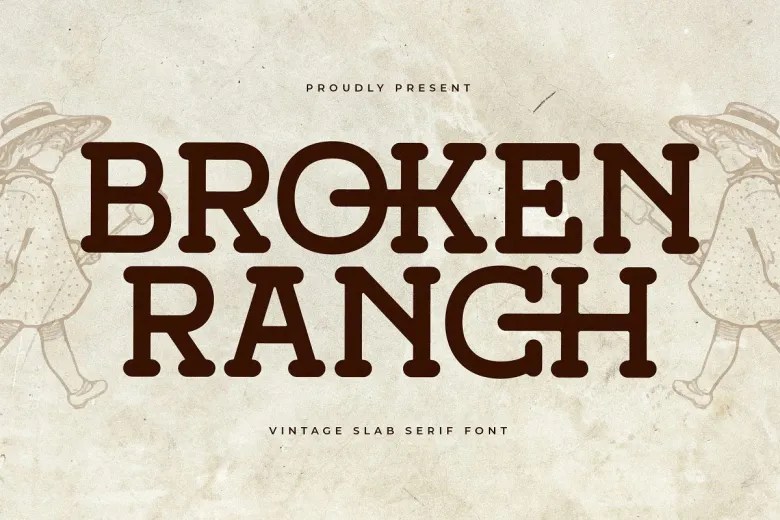
Broken Ranch Font
in Slab Serif
Broken Ranch Font, created by Storytype, is a striking blend of traditional and modern slab serif styles. With its unique design and contemporary flair, this font is ideal for a wide range of applications, ensuring your projects stand out with elegance and sophistication.
Key Features of Broken Ranch Font:
• Distinctive Style: Merges classic slab serif characteristics with modern aesthetics, providing a fresh yet timeless look suitable for various design needs.
• Versatile Applications: Perfect for creating impactful logos, book or film titles, fashion brand materials, magazine layouts, clothing letters, and inspiring quotes. Its versatility ensures it makes a statement in any context.
• Elegant and Luxurious: The font’s refined design adds a touch of luxury to your projects, making it a great choice for high-end branding and sophisticated design elements.